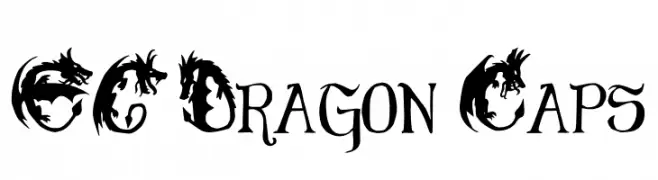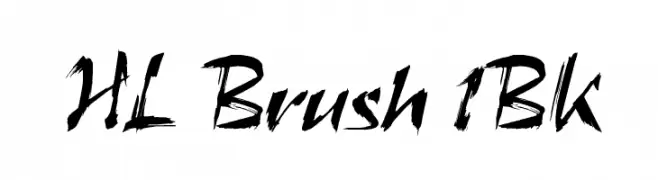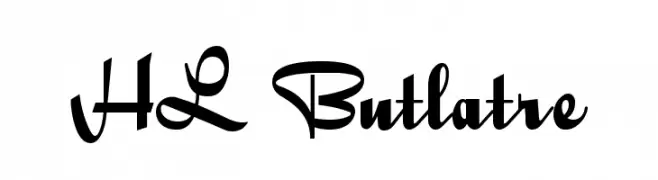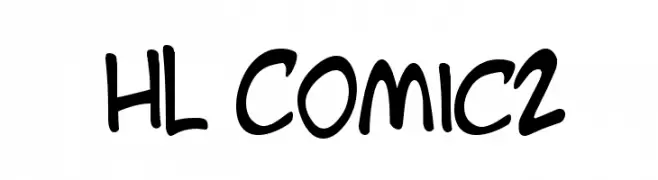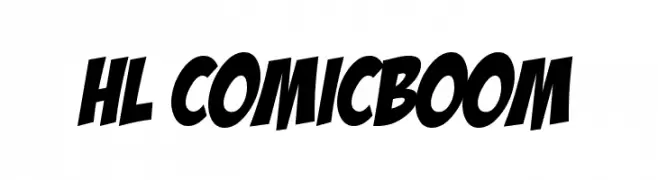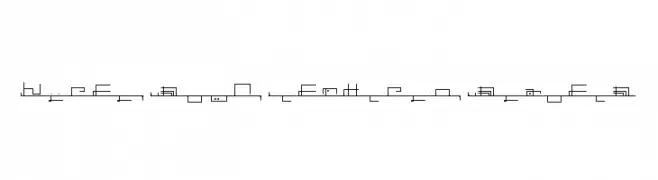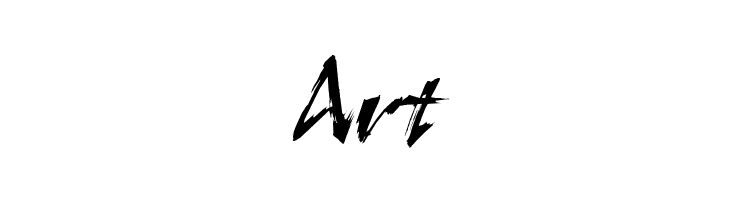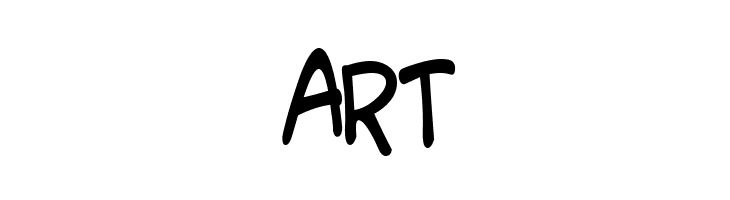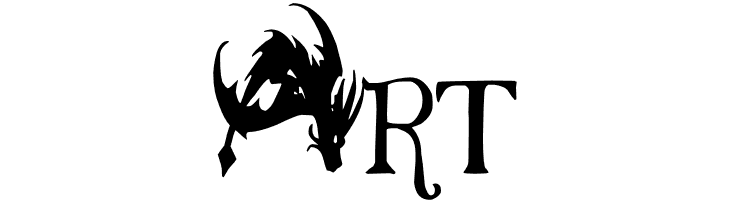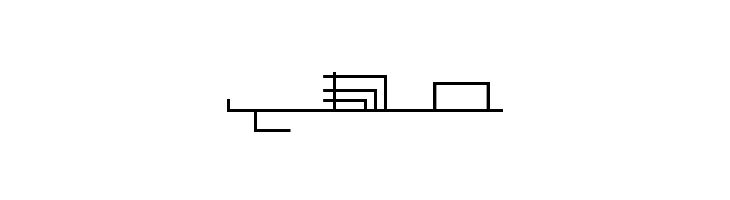
A dynamic brush-style font with bold, expressive strokes and a hand-painted feel.
A bold, decorative script font with expressive, sweeping strokes.
A bold, dynamic font with a playful comic book style.
A scouting-themed decorative dingbat font with detailed icons.
A decorative font with dragon-themed uppercase letters and bold, gothic-inspired characters.
A display font made of weapon silhouettes instead of standard characters.
An abstract, geometric font with a futuristic and technical aesthetic.
A bold, industrial font with a textured, mechanical appearance.
Bold, distressed style with both solid and outlined versions for versatile use.